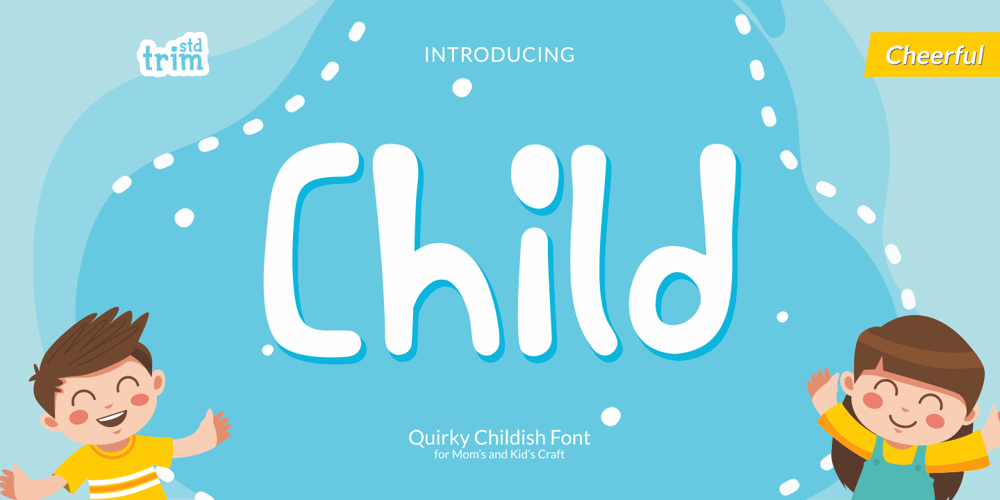
Child
Child font
Child Font Family was designed by Deri Kurnia and published by Trim Studio. Child contains 1 styles and family package options. Child is a cute and quirky display font. It will attach a very playful and childish style to any design you wish to develop!Its perfectly suited for crafter and graphic artist to complete their design such as invitation, advertisement, poster, logo, birthday, product sign, and many more!Child Font is also Lightweight and contains All Standard glyphs and punctuations.